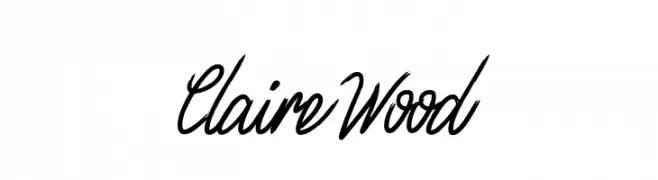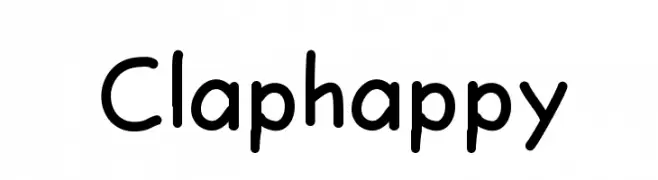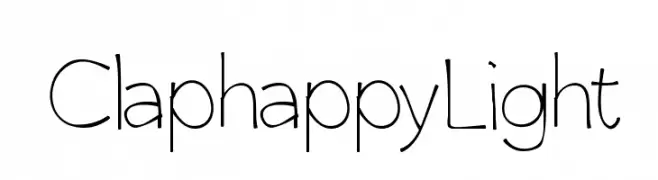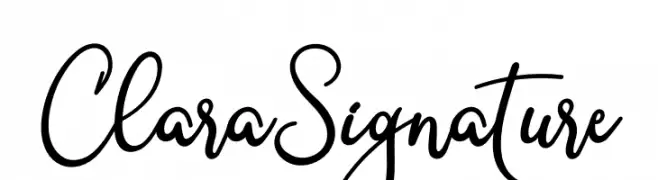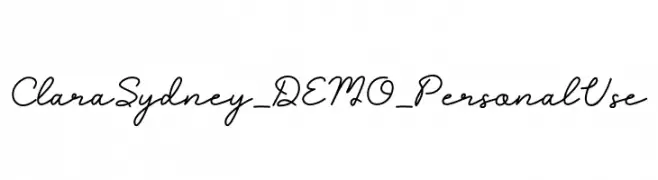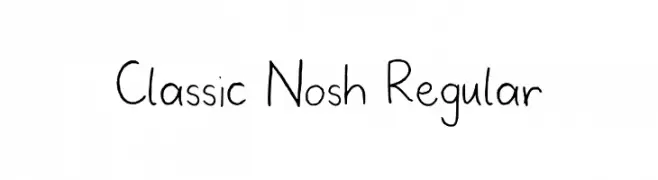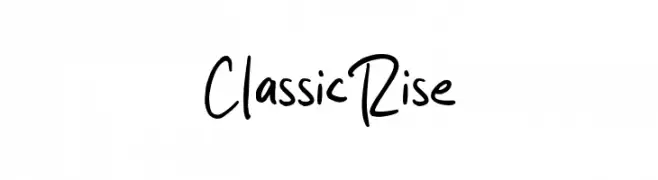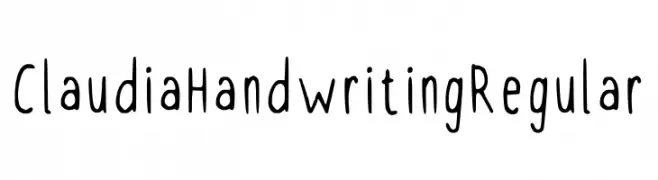
( Fonts by Staircase Studio )
A fluid, elegant script font with a natural handwritten style.
( Fonts by Kate Matheson )
A playful, hand-drawn font with rounded characters and a whimsical style.
( Fonts by Kate Matheson )
A playful, handwritten font with a light and airy feel.
( Fonts by Airotype Studio )
A sophisticated and elegant handwritten script with fluid, graceful letterforms.
( Fonts by Sereneowl )
A graceful script font with fluid, connected strokes and elegant flourishes.
( Fonts by Noshin )
A playful, casual handwritten font with smooth, flowing lines and a friendly vibe.
( Fonts by MJType )
A casual, handwritten font with a natural, flowing style.
( Fonts by Storytype Studio )
An elegant script font with flowing lines and high contrast, perfect for sophisticated designs.
( Fonts by Claudia Manca )
Casual handwritten font with a playful style.